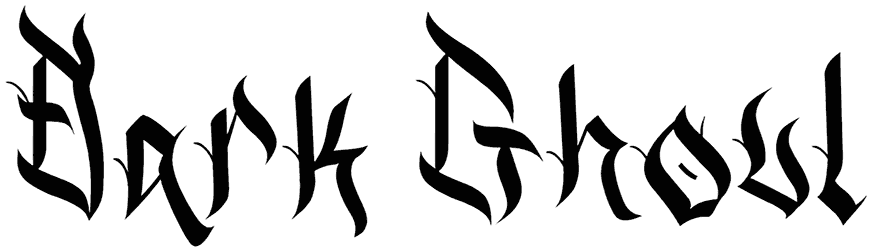
Dark Ghoul Font
Take a look at Dark Ghoul, a blackletter font that is crafted so well to bring a combination of fresh, scary, and magical experiences to your design. It has a full set of stylish characters and can be applied to both classic and futuristic projects. This font will be perfect for product packaging, T-shirt prints, movie posters, album covers, and vampire concepts.